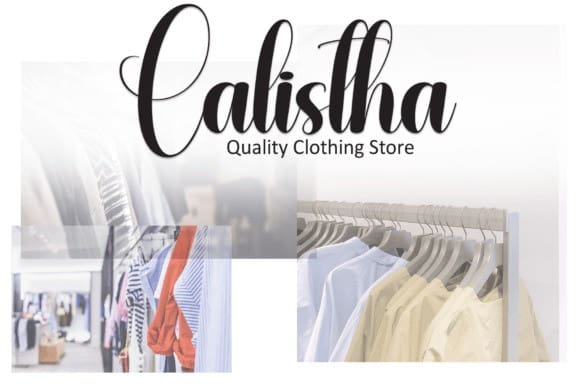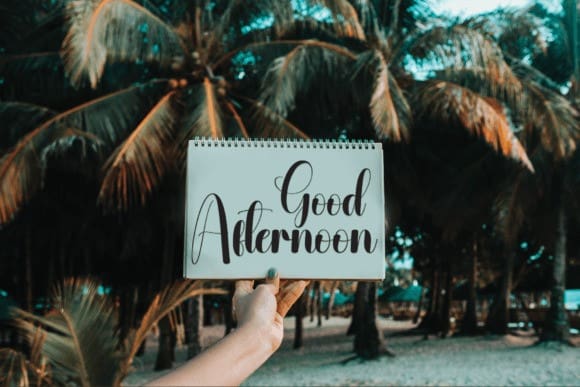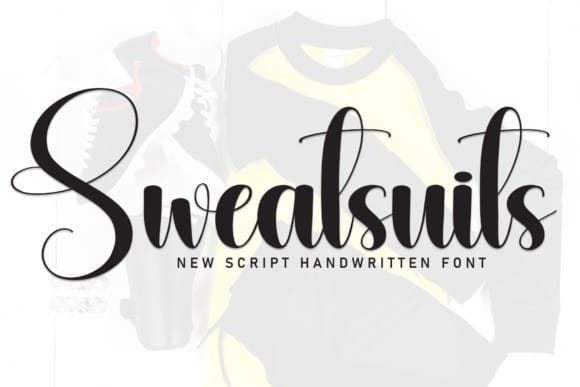
Sweatsuits Font
Sweatsuits Font is a sweet and friendly handwritten display font. Cute and fun, this font is ideal for writing wedding invitations, cards, or any other design that might need a fun touch!